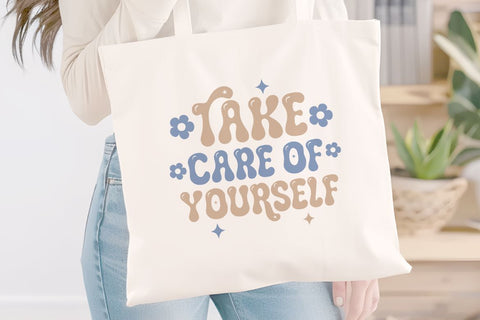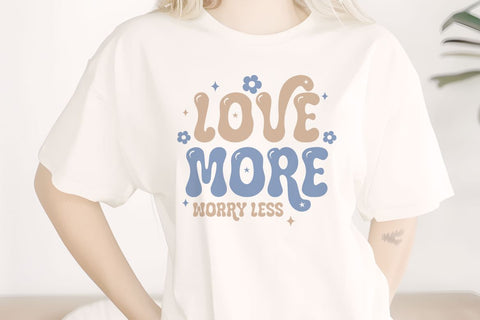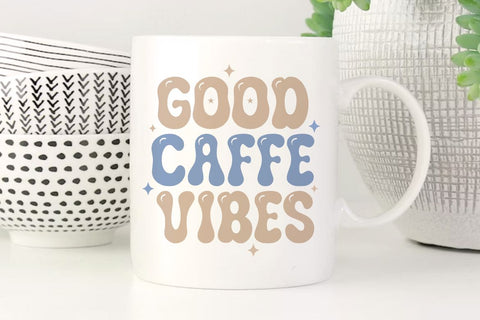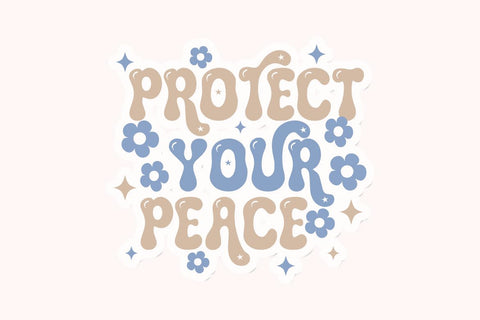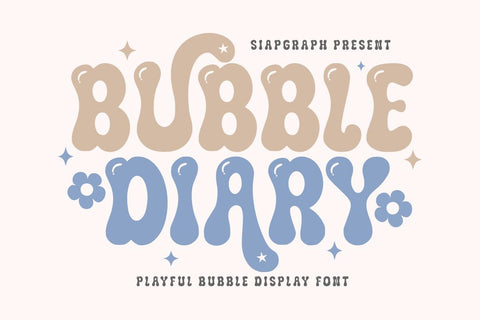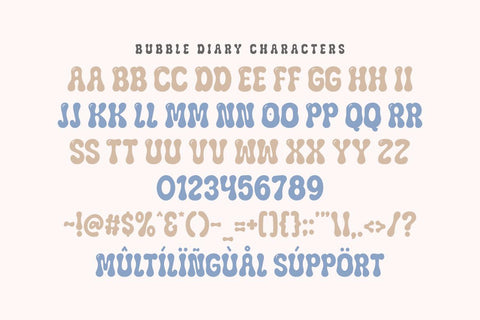
Bubble Diary - Playful Bubble Display Font
Bubble Diary is a delightful Playful Bubble Display Font specially crafted to bring a fun, friendly, and cheerful vibe to your creative projects. Featuring bold, chunky, and rounded letterforms accented with adorable bubble details and charming flower elements, this typeface is designed to make your projects stand out with a whimsical and happy personality. Its clean and solid construction is optimized for the crafting community, ensuring a seamless and frustration-free experience for vinyl cutting, sublimation, and high-quality digital printing.
Perfect for: creating high-impact SVG cut files, personalized stickers, kids' party decorations, adorable nursery wall art, custom t-shirt designs, festive greeting cards, and vibrant social media graphics. Whether you are a professional Print on Demand (POD) seller or a dedicated DIY enthusiast, this font offers the perfect balance of readability and sweet charm for any project.
Great for holiday themes such as Birthdays, Valentine's Day, Spring celebrations, and Children's Day, adding a bouncy, cheerful, and super cute personality to all your seasonal design collections!